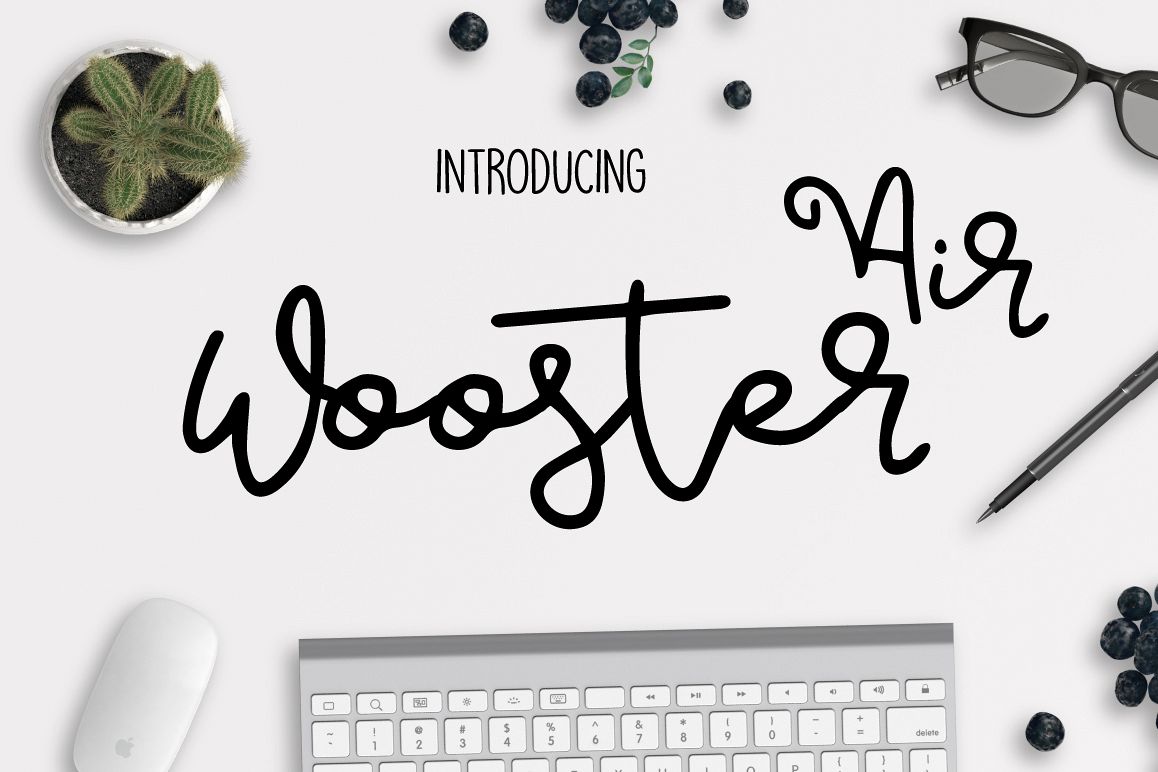
Air Wooster
It's hand lettered and modern script font. The script comes with alternative letters.
This fonts are perfect for your blog or postcard for wedding. Also with their help, you can create a logo or beautiful frame for your home. Or just use for your small business, book covers, stationery, marketing, magazines.